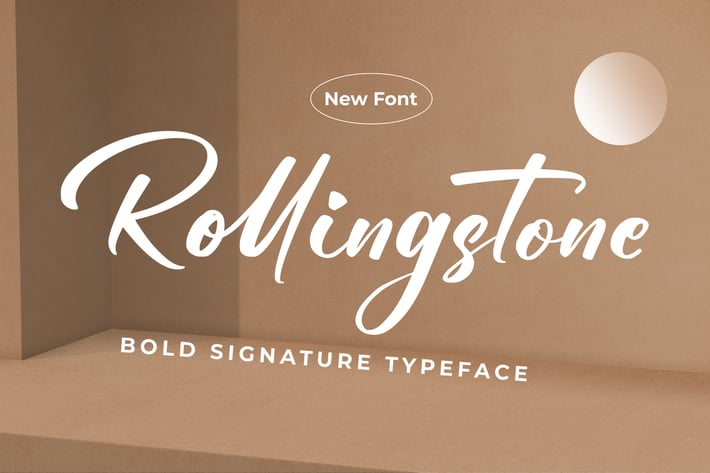
Rollingstone - Bold Signature Font
Rollingstone feels equally charming and elegant. It looks stunning on wedding invitations, thank you cards, quotes, greeting cards, logos, business cards and every other design which needs a handwritten touch.
Modern Handwritten Font
Beautiful Swash (Ending tail)
Beautiful Titling (Beginning tail)
Special Ligatures